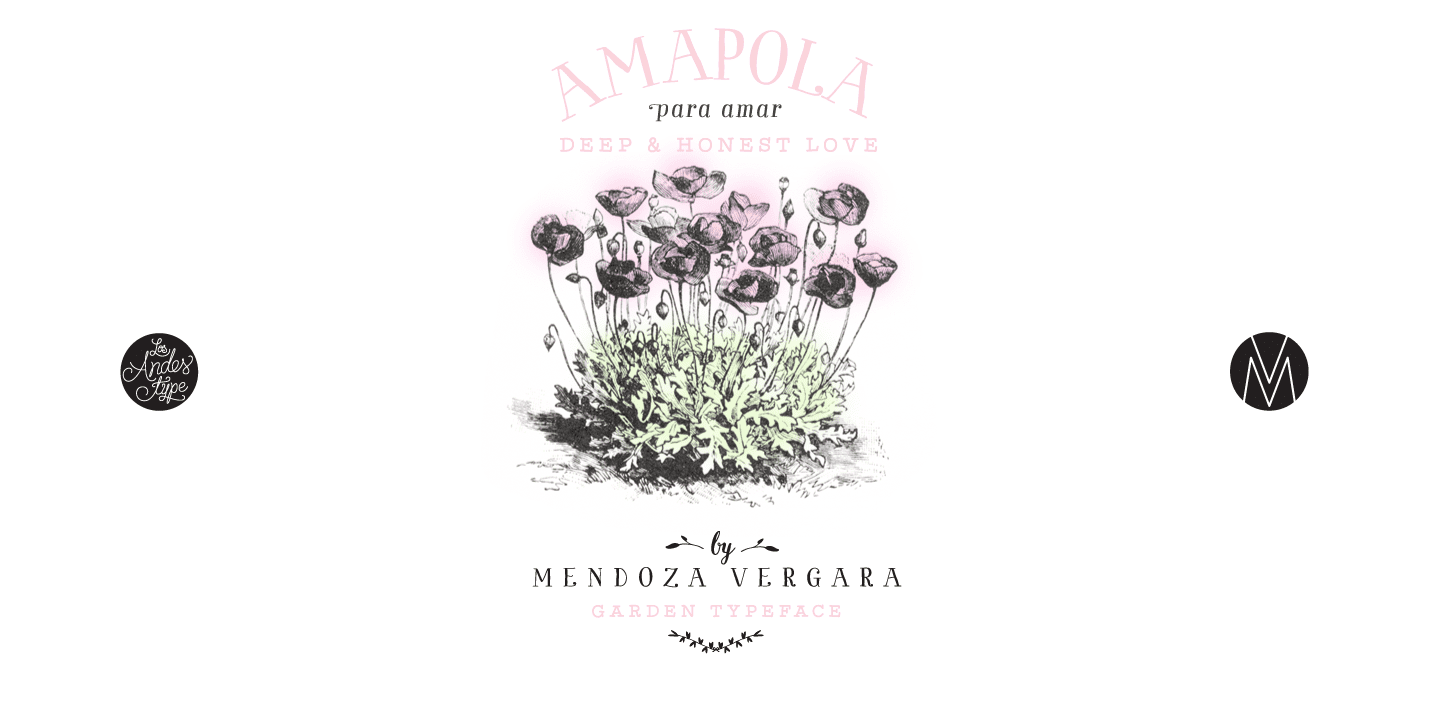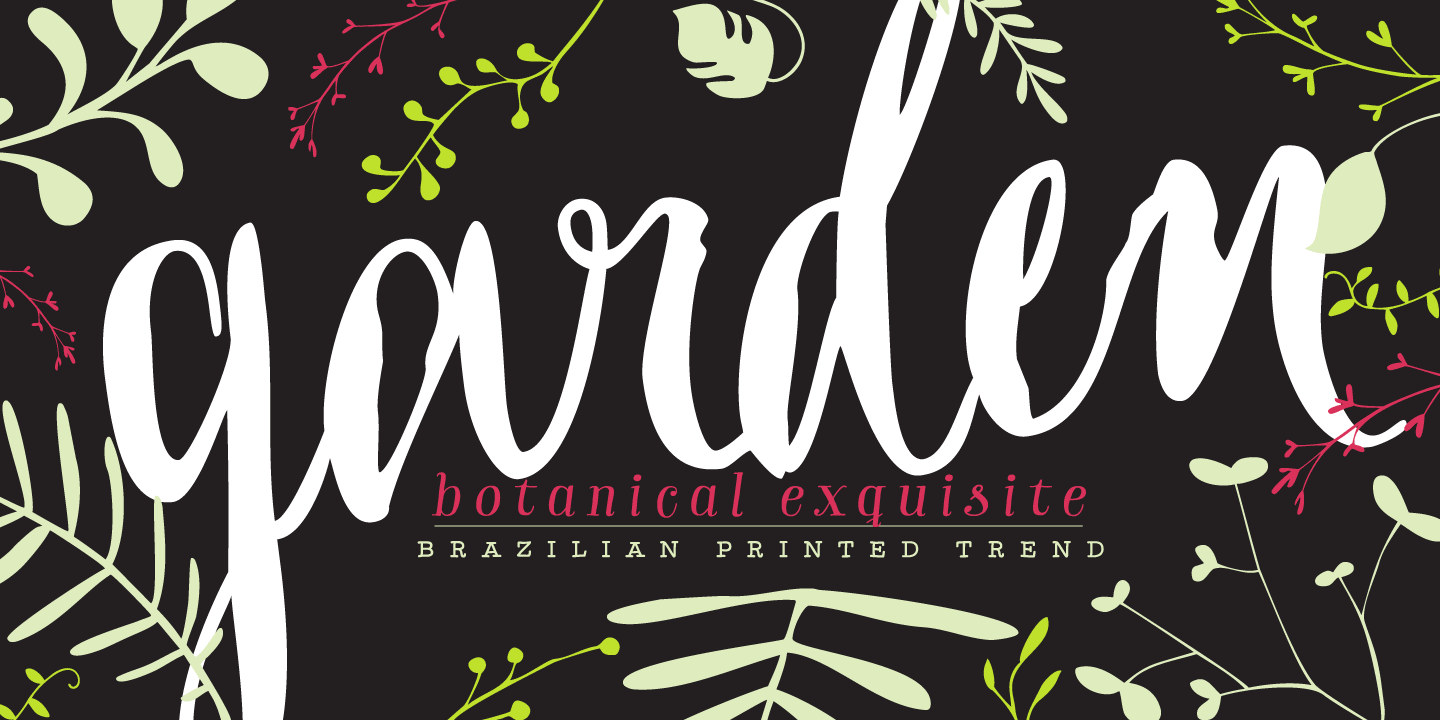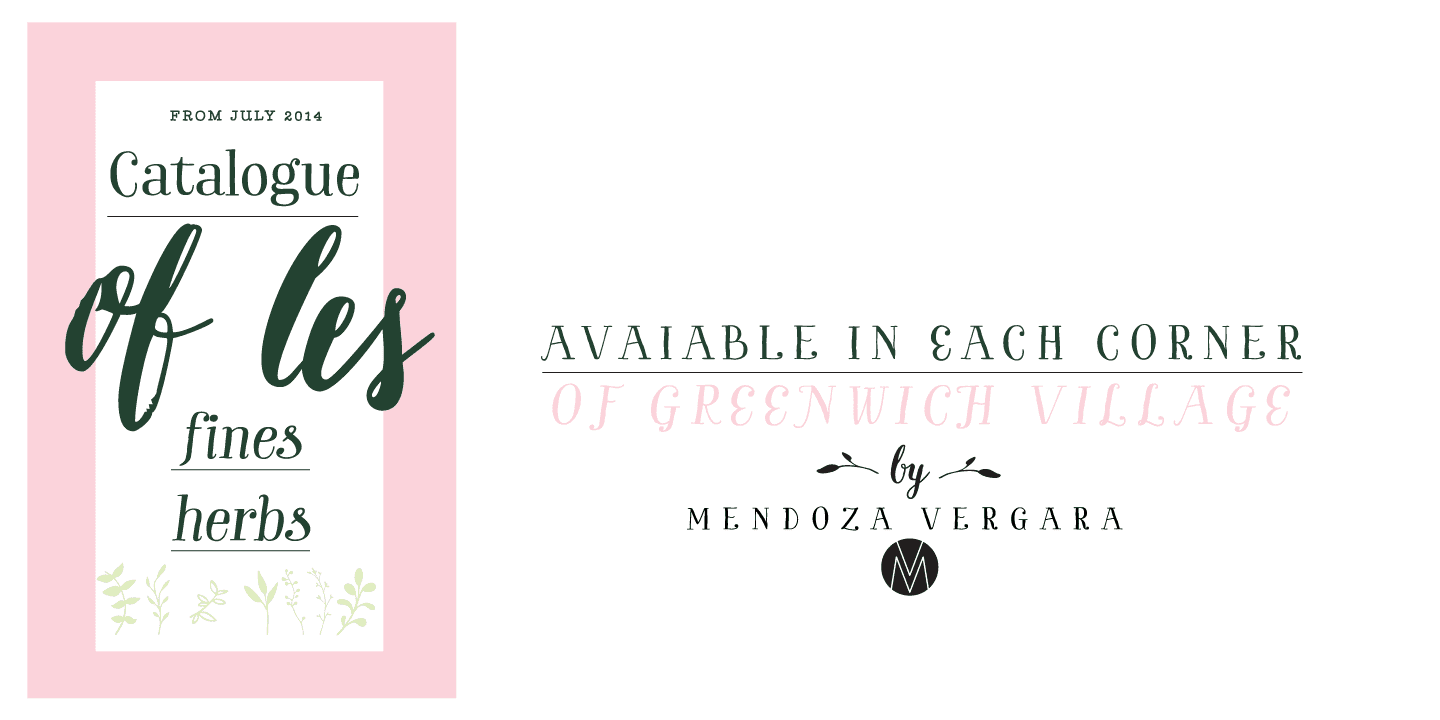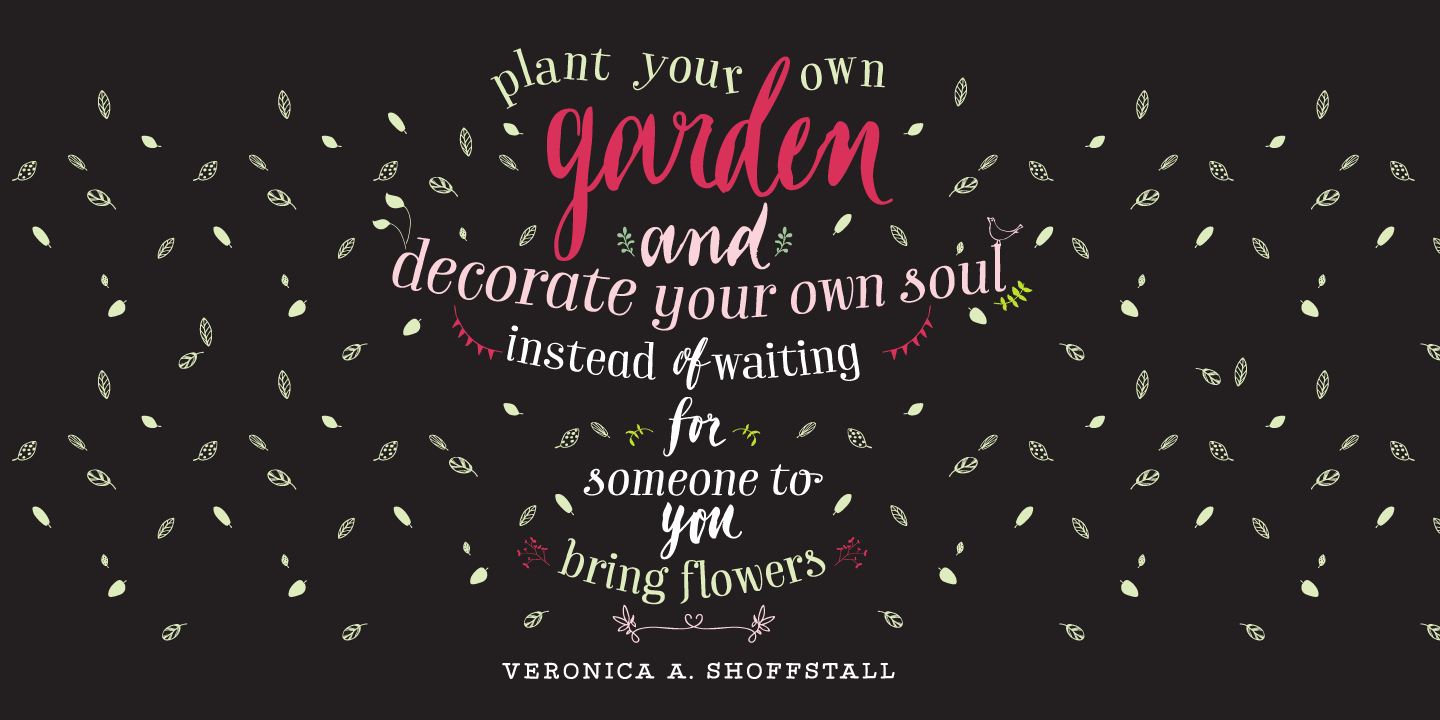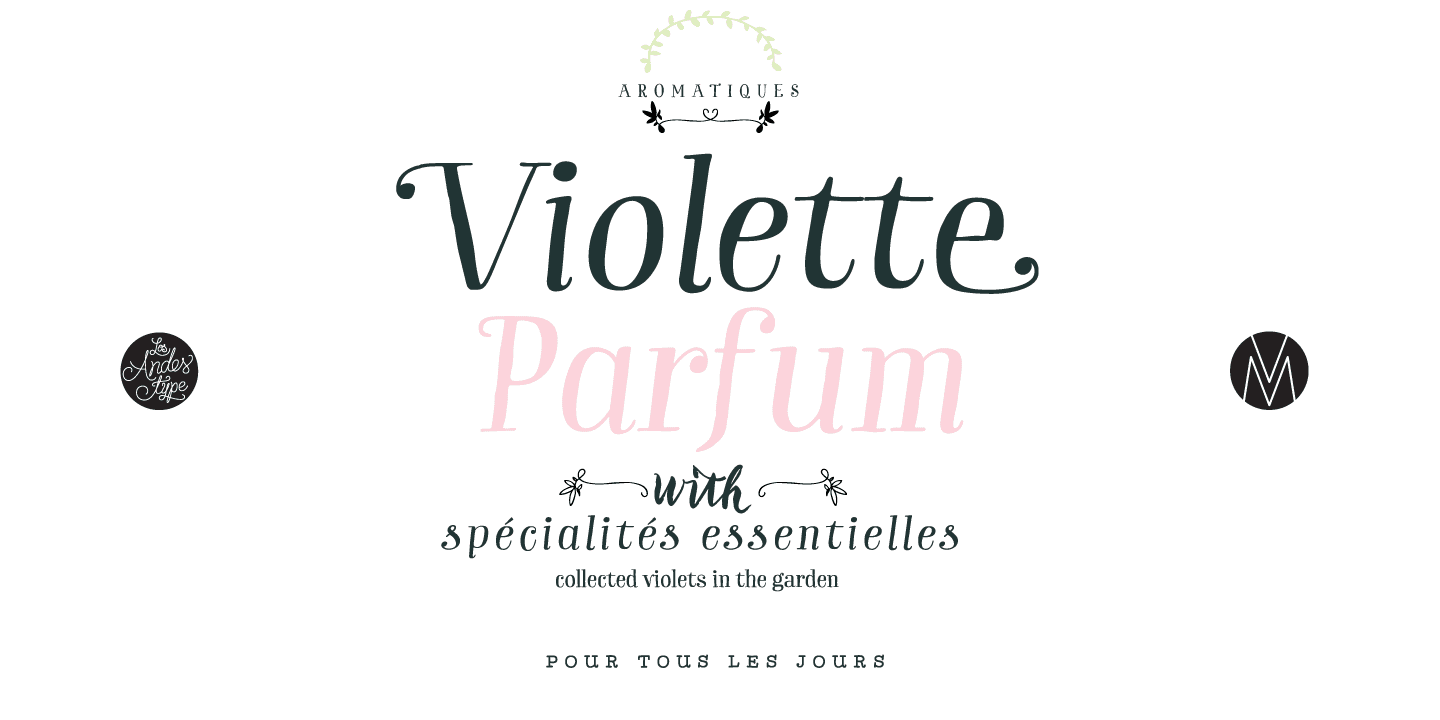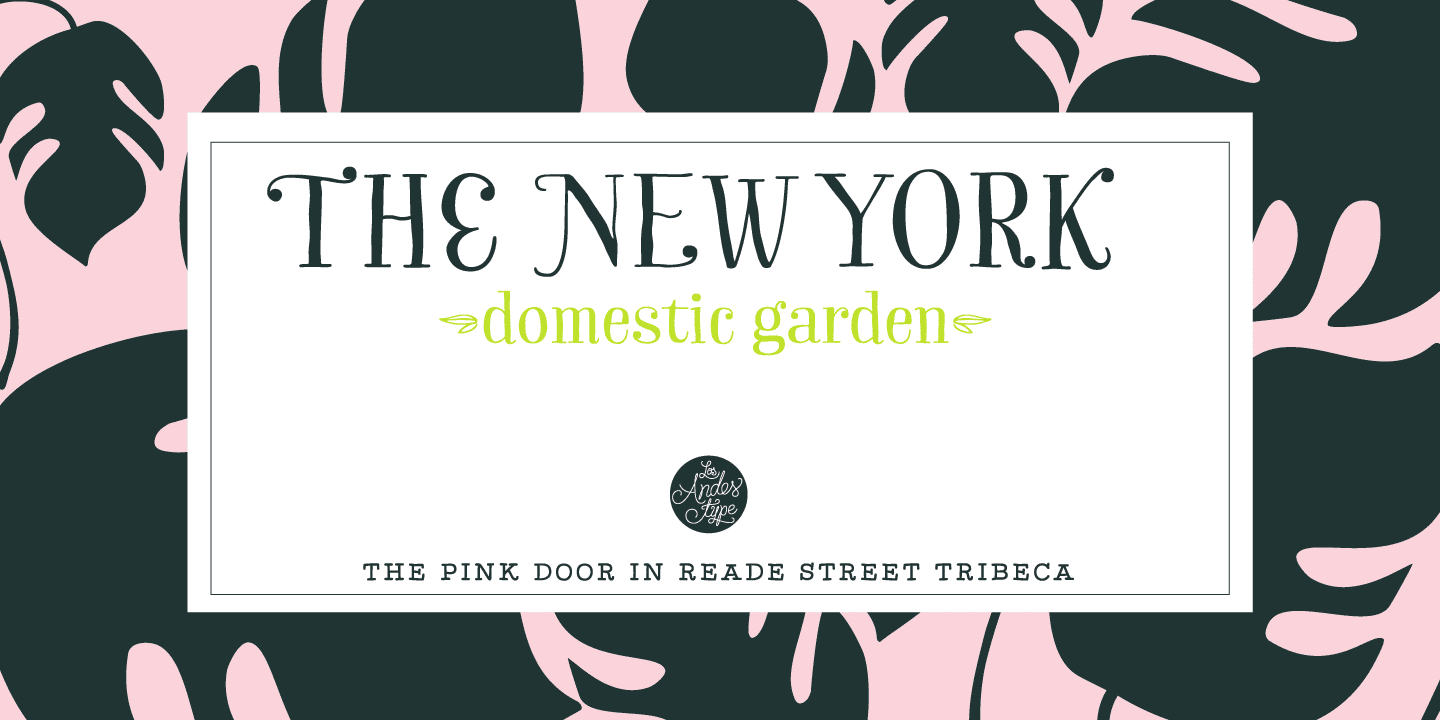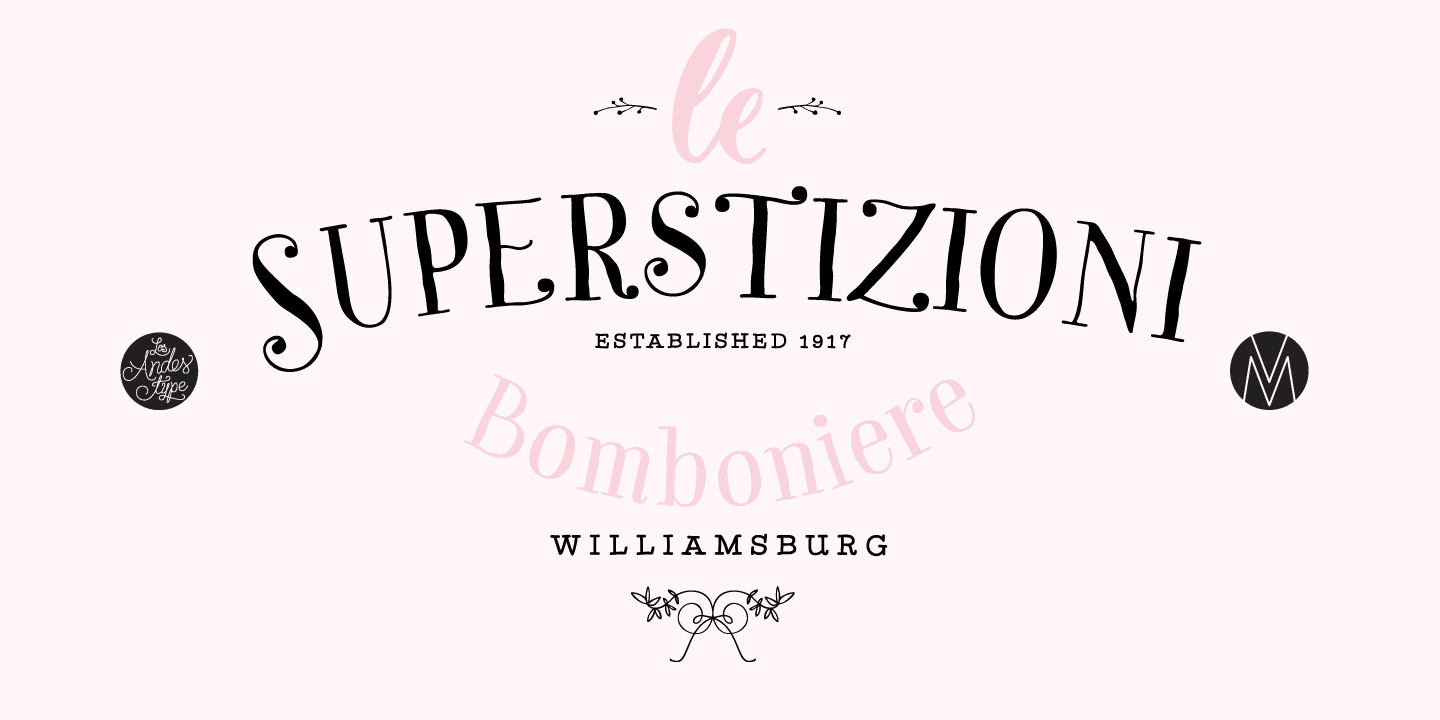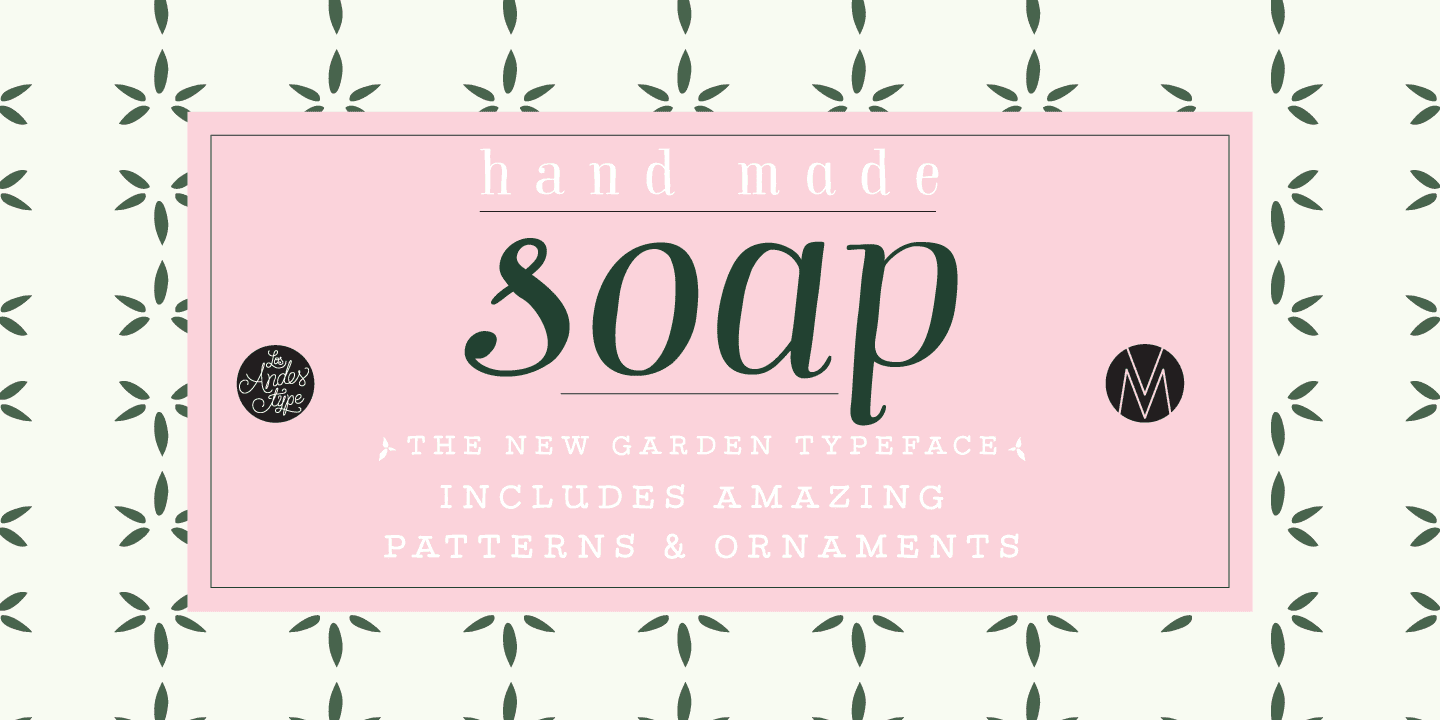
"Last year, we visited Brazil and we were totally captivated by its cheerful and warm people. Its wild nature is absolutely amazing and very noticeable in textile printing as well as in floral design. That was precisely what inspired us to create some ornaments and dingbats, which we then turned into a single typographic work. The resulting typeface was called Garden, a handmade serif display font with a playful and spontaneous feel."
Designed by Mendoza Vergara, all font sets come with a font of original catchwords (based on brush calligraphy), floral dingbats and botanical ornaments. The OpenType version provides a wide range of creative options. Garden is well-suited for text composition, posters, headlines, label design and handmade-style items. Garden is inspiration, nature and joy!